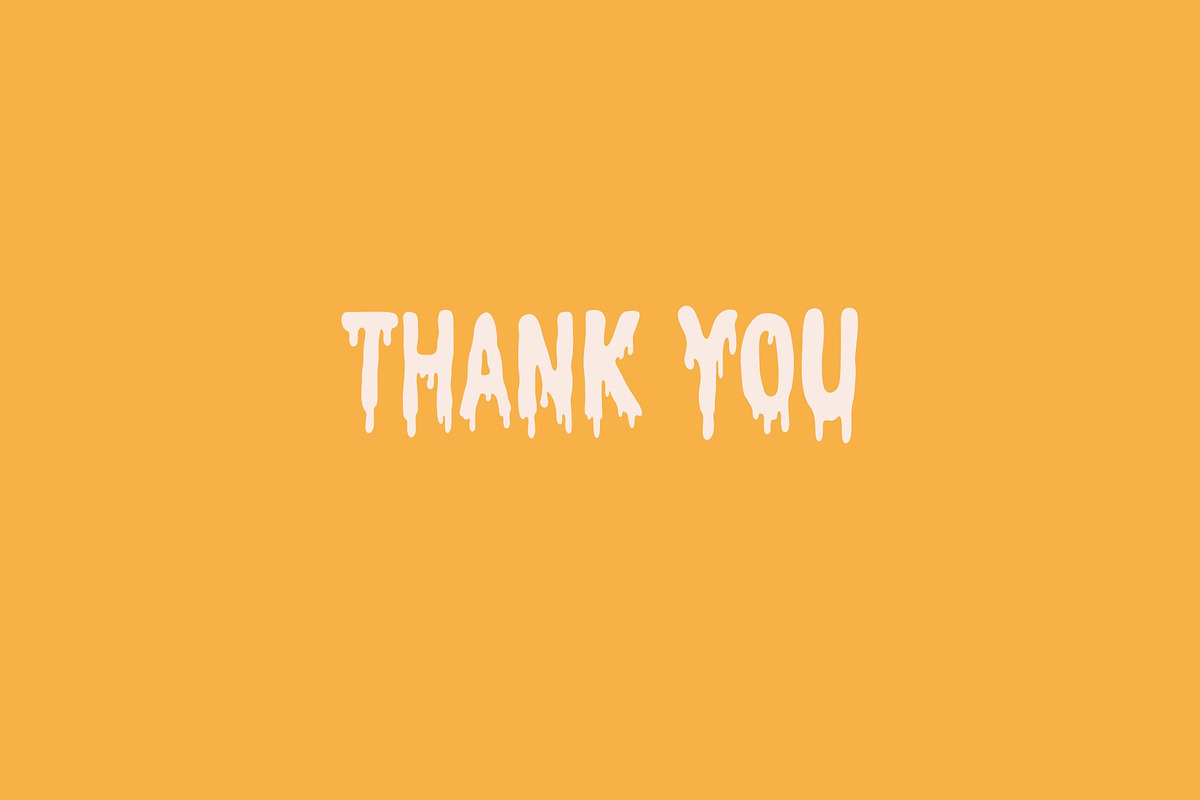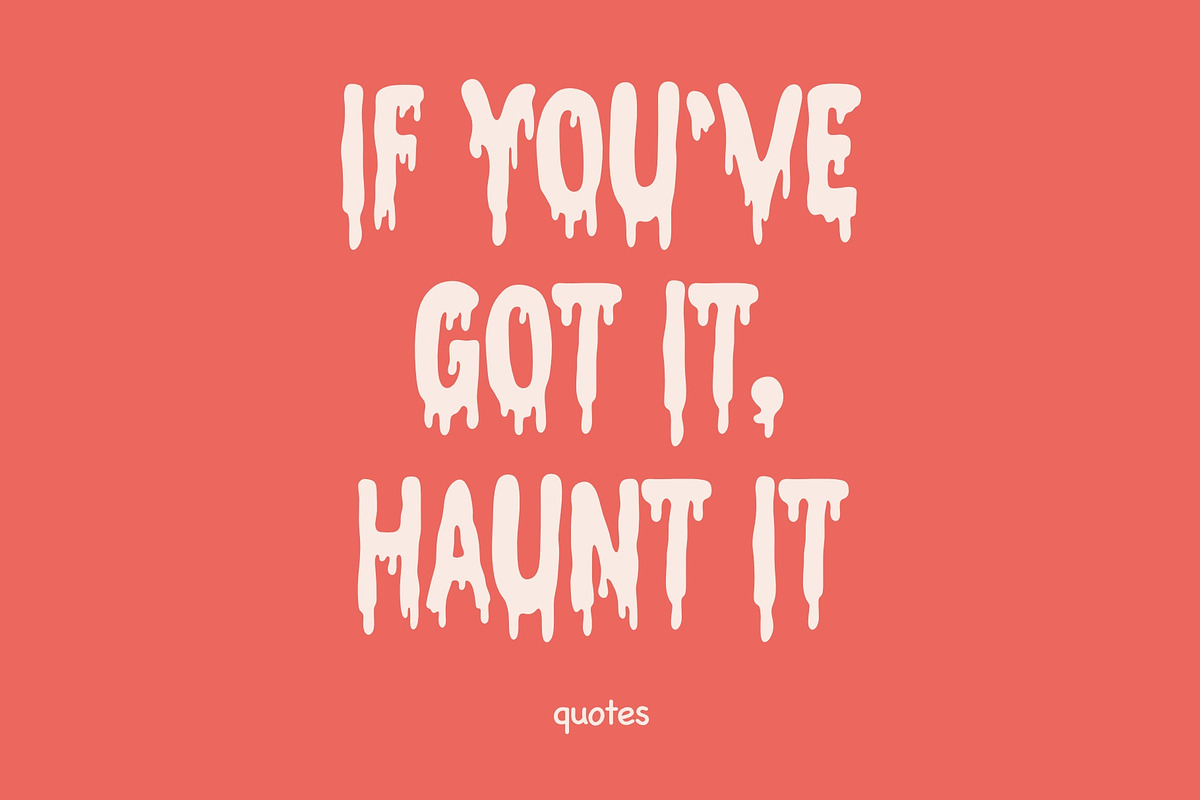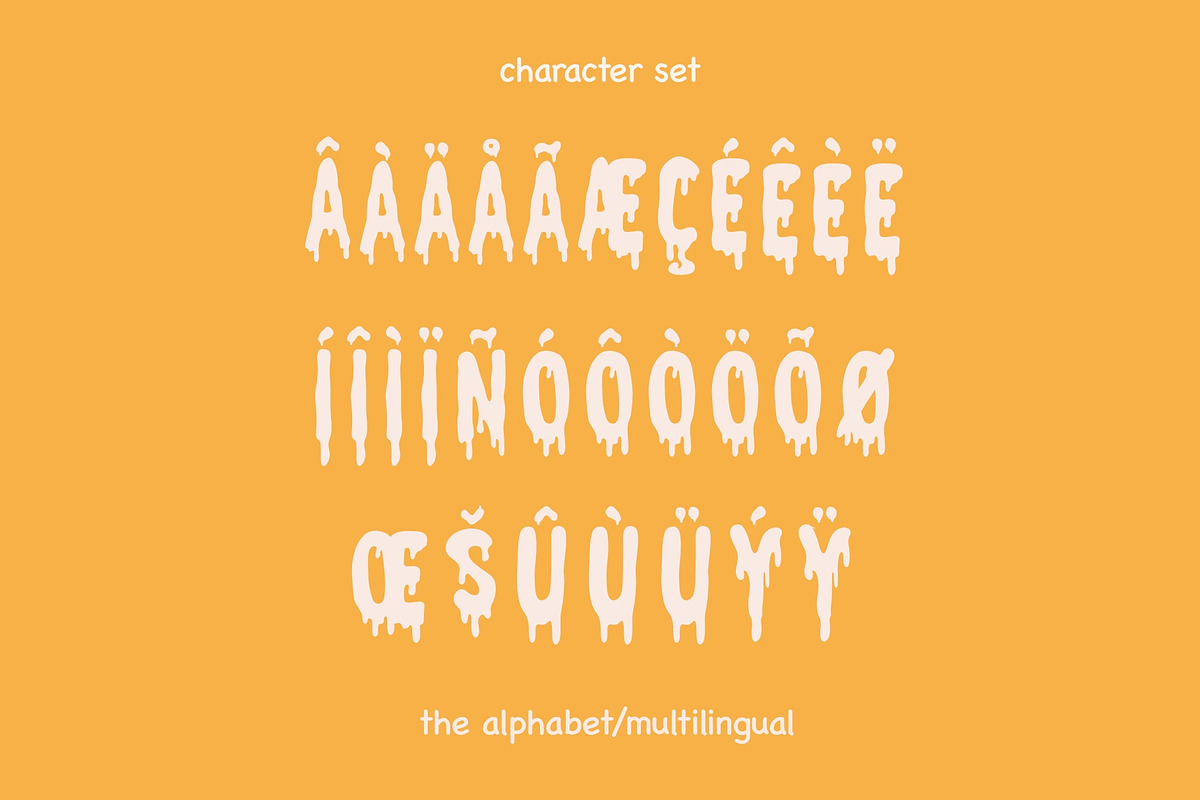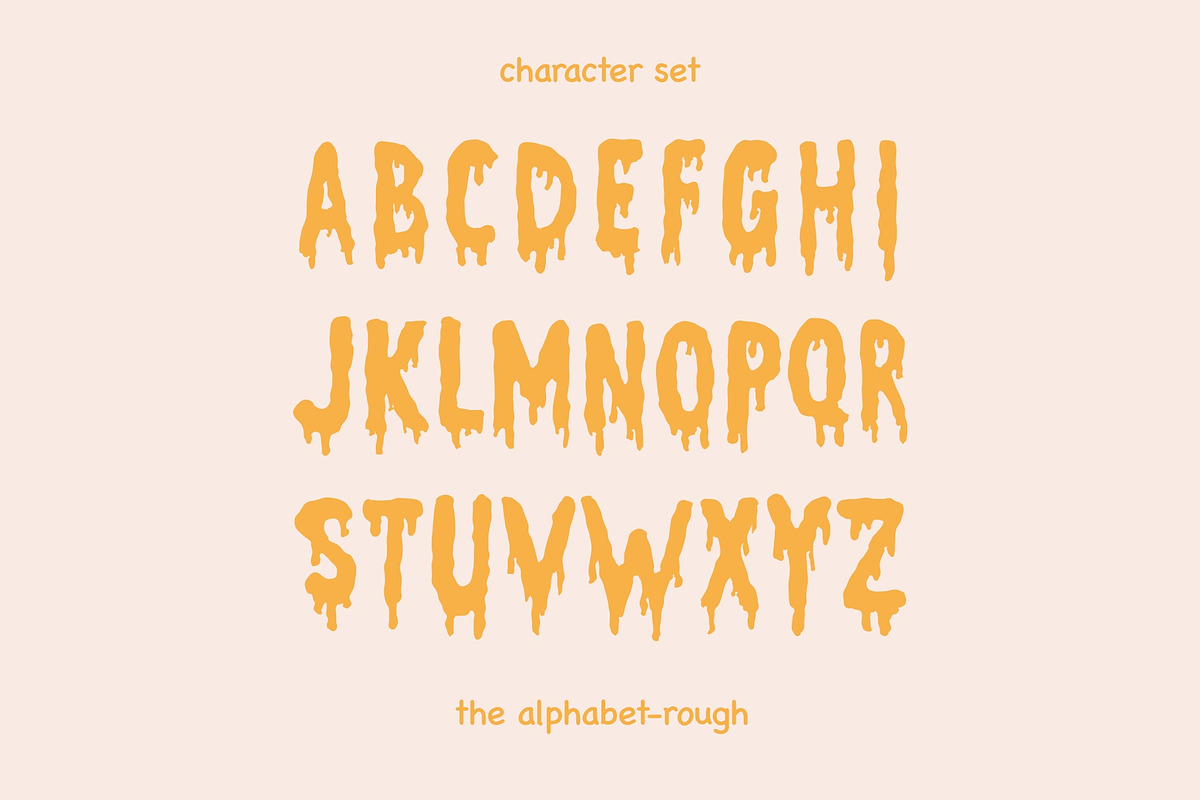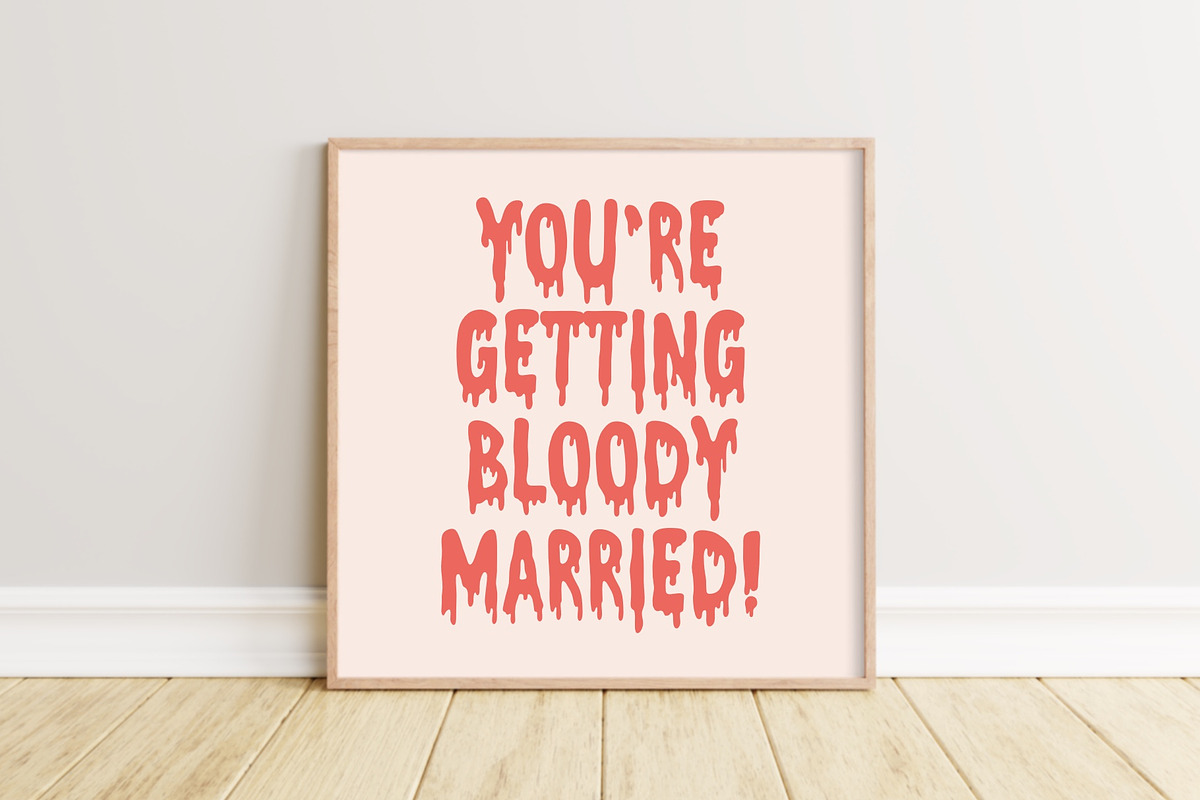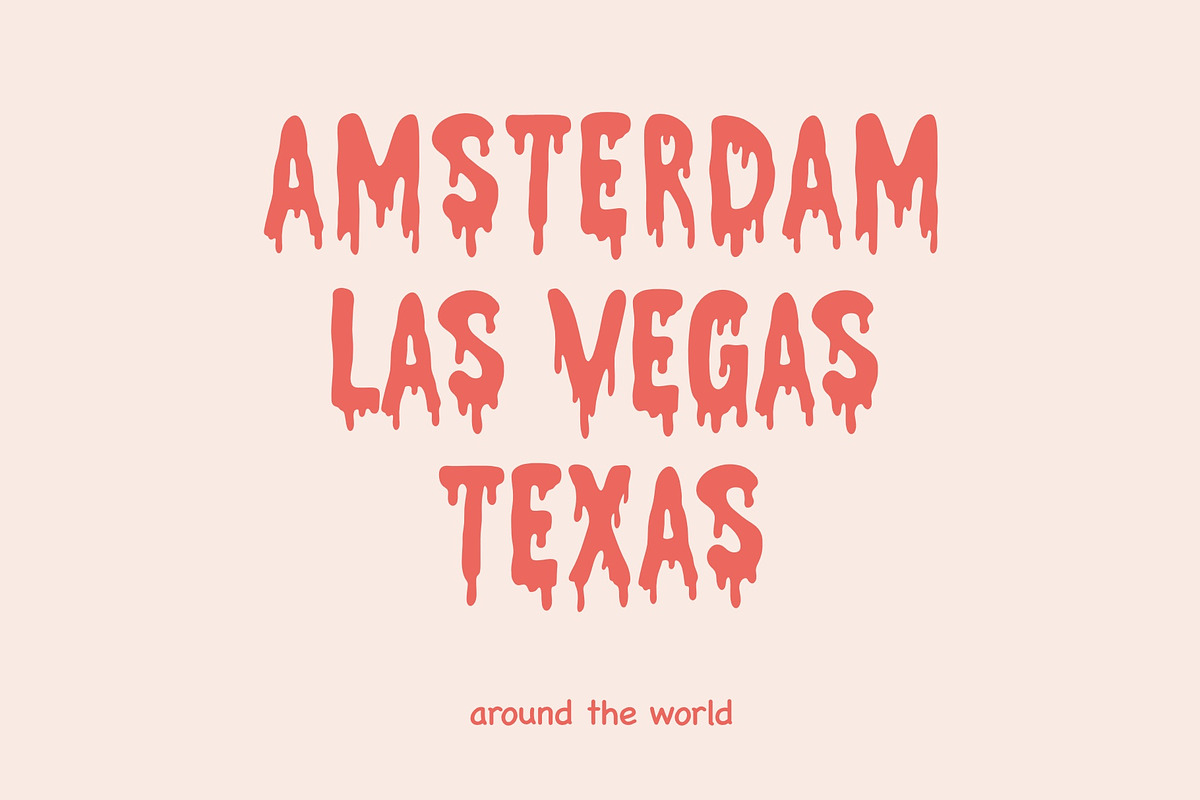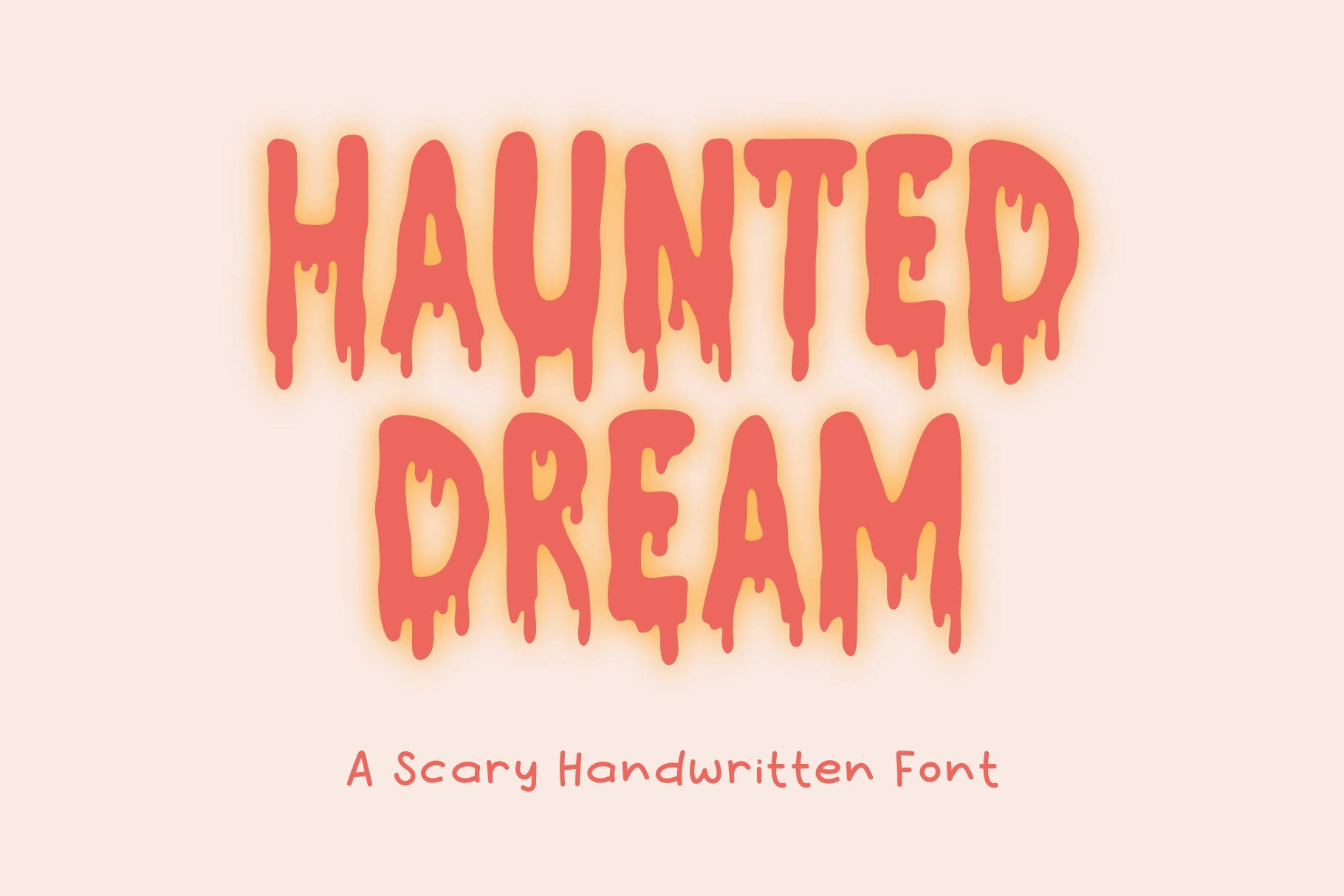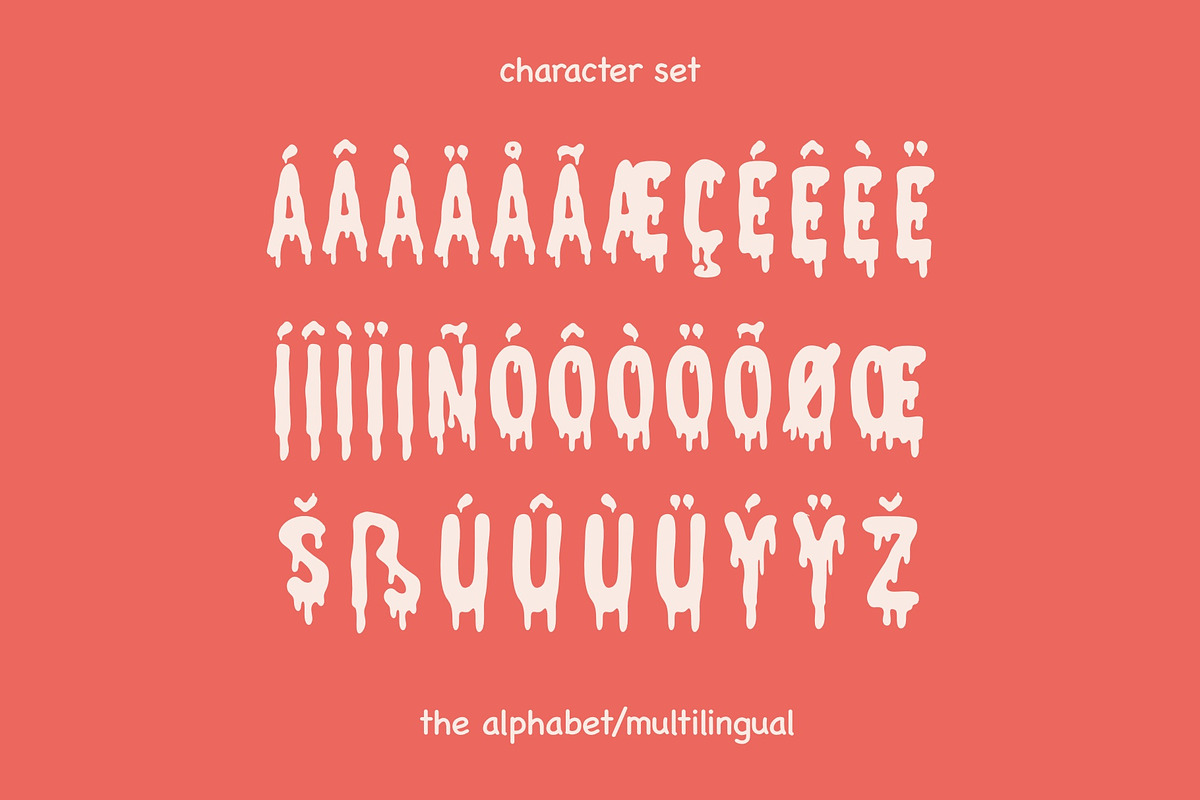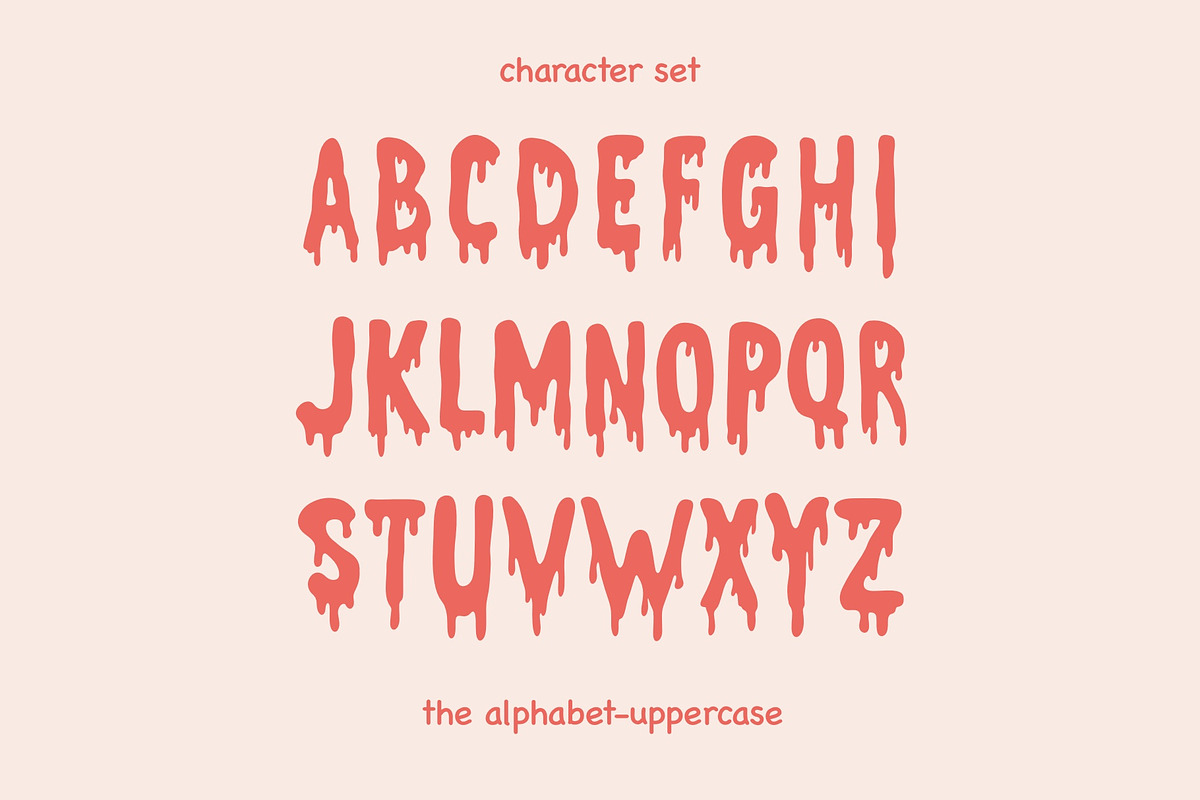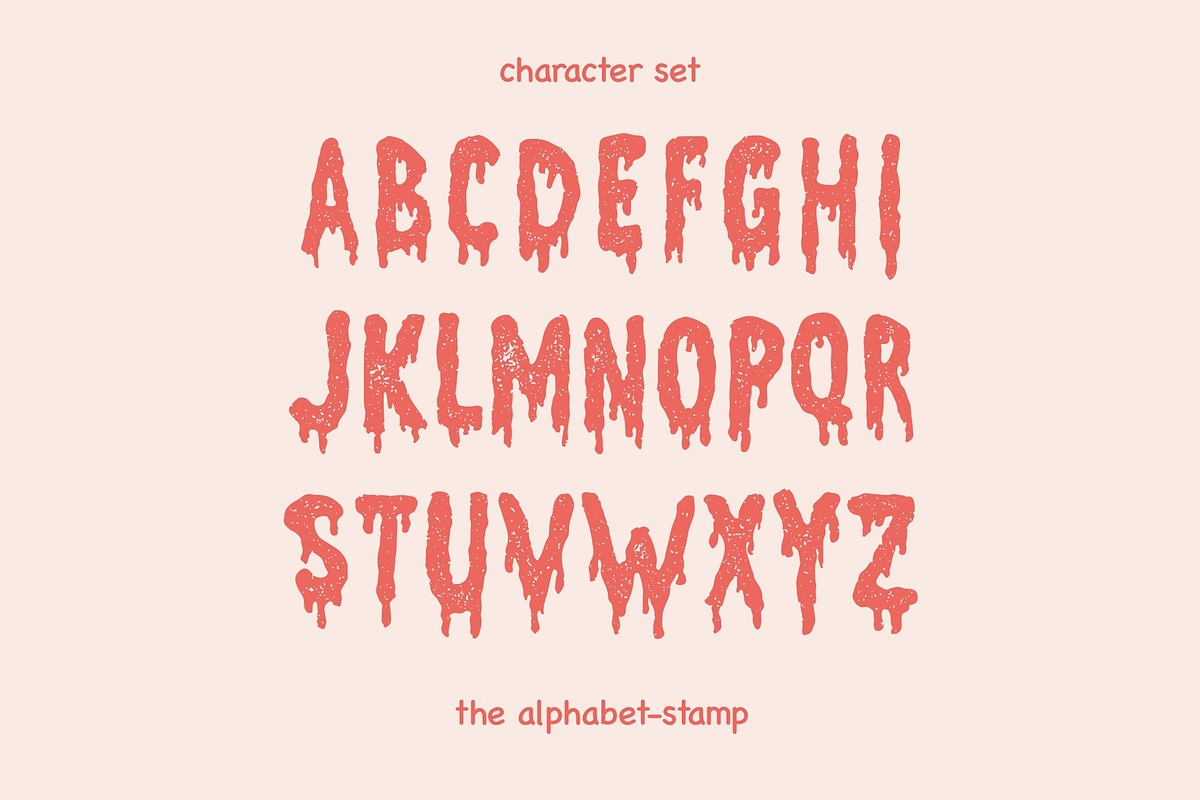
Haunted Dream Font - Horror Font
Haunted Dream is a spine-chilling and atmospheric font product that encapsulates the essence of fear and horror through its unique handwriting style. This typeface available in SVG format, compatible with advanced tools such as Cricut and Glowforge, and for use in Procreate. The uneven strokes and ominous curves contribute to the overall sense of foreboding, making "Haunted Dream" an ideal choice for Halloween-themed designs, horror movie posters, or any project that requires a touch of macabre creativity.